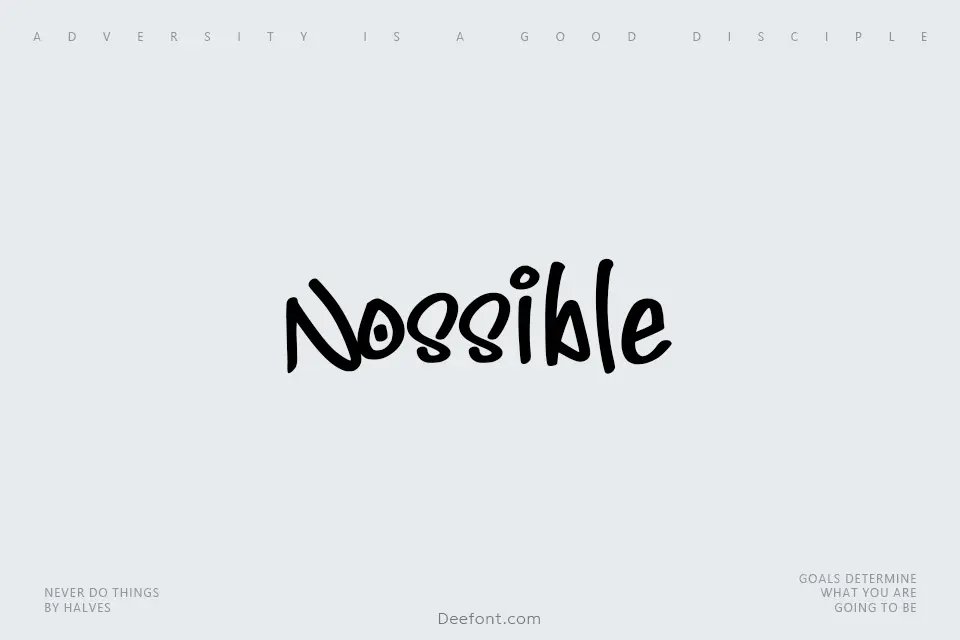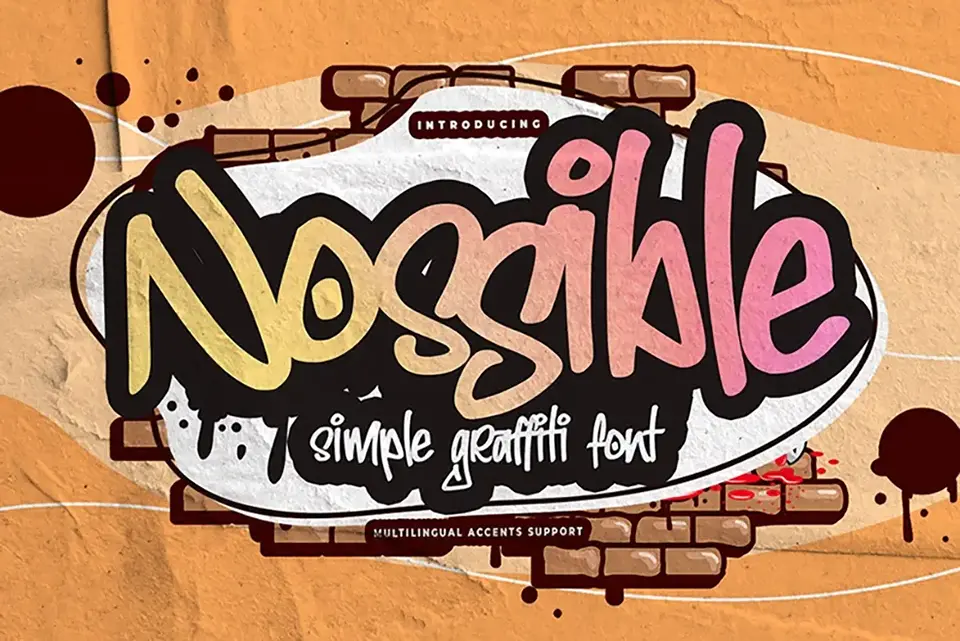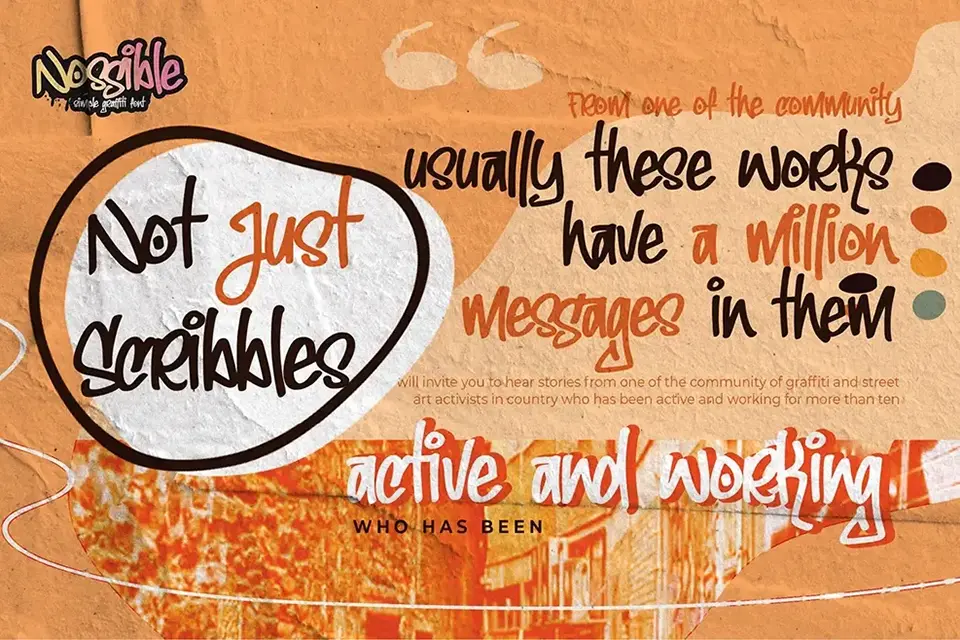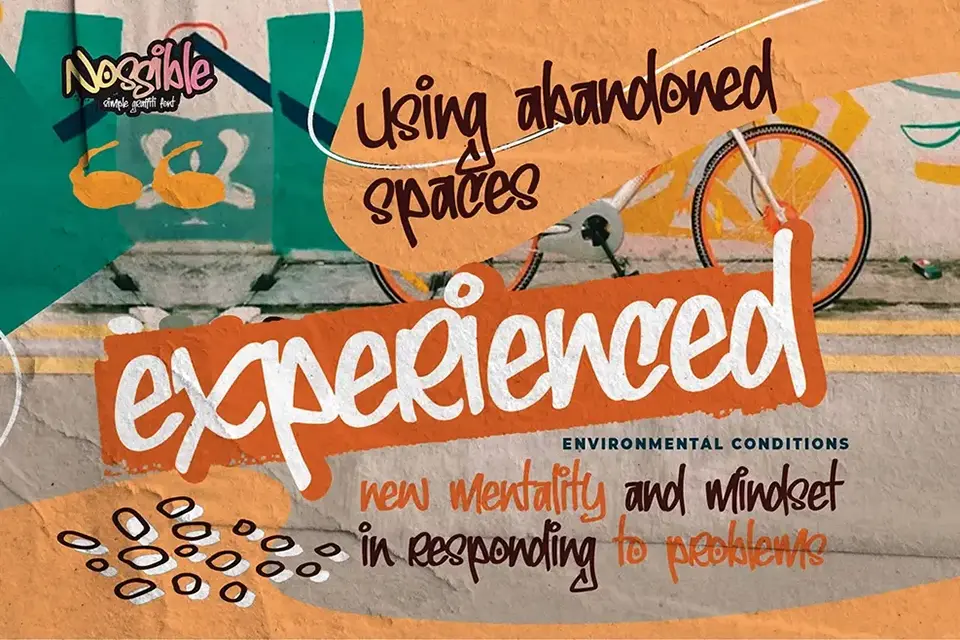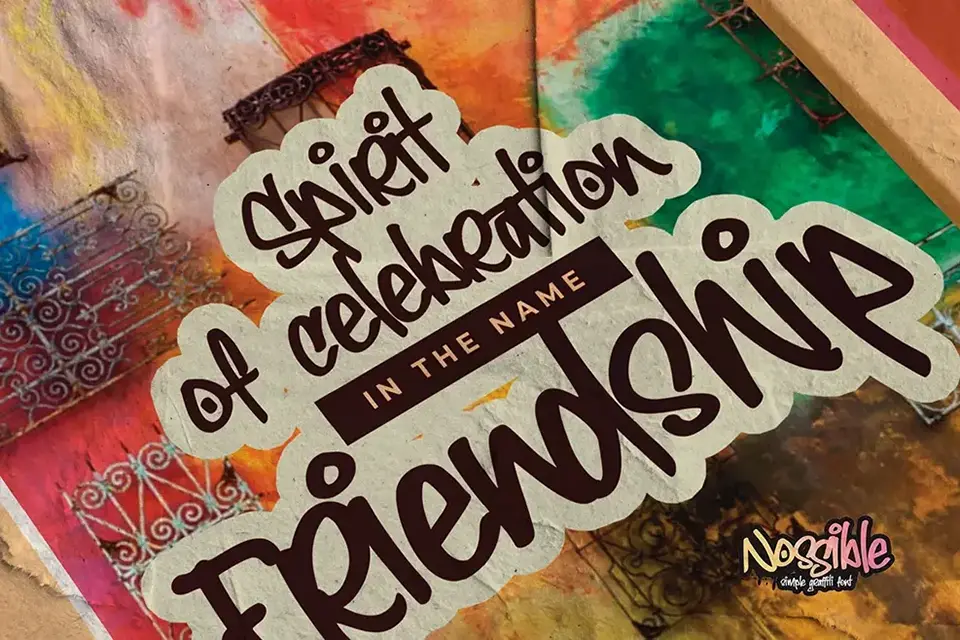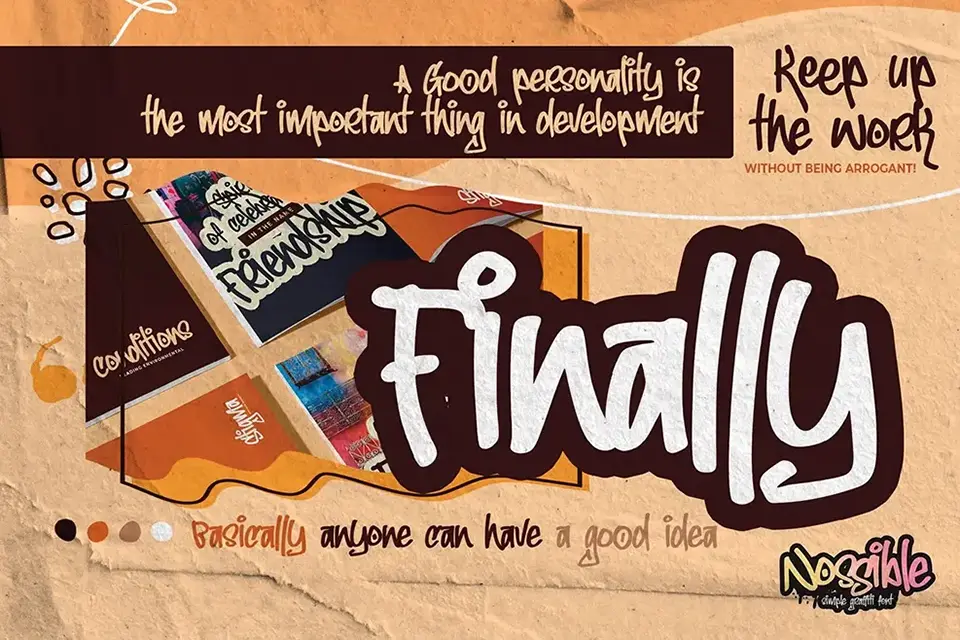
Nossible Font
Nossible is a modern graffiti-inspired script font with a rough, urban feel and textured characteristics. Perfect for labels, posters, DIY projects, branding, packaging, greeting cards, and creative designs that need an authentic, hand-drawn aesthetic. The font features uppercase and lowercase letters, extensive ligatures, multilingual support, and works seamlessly in Adobe Creative Suite and Microsoft Word, making it ideal for eye-catching headlines and contemporary design projects.